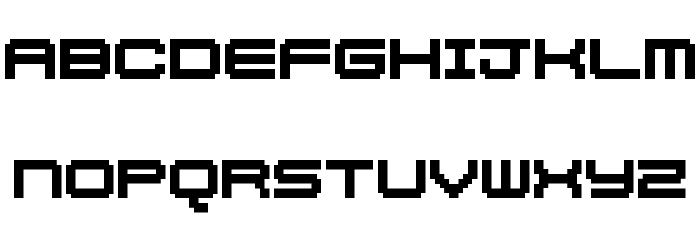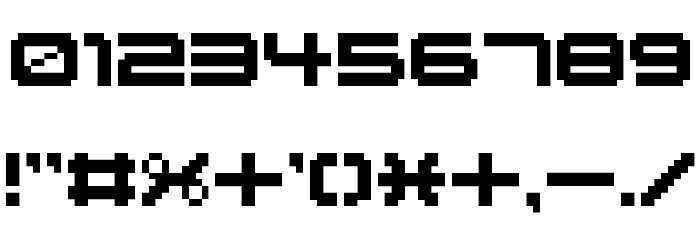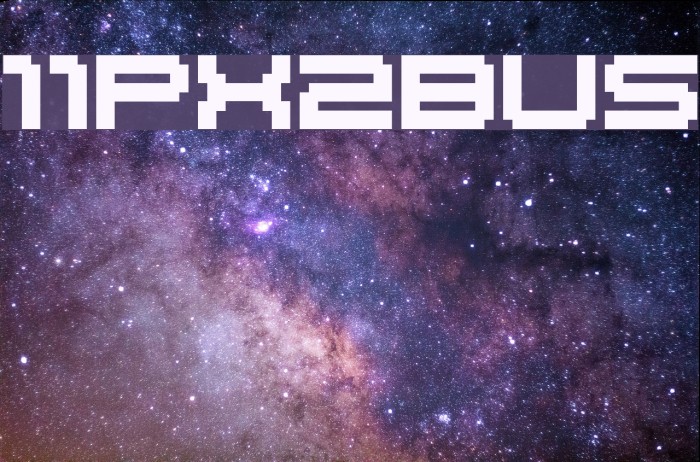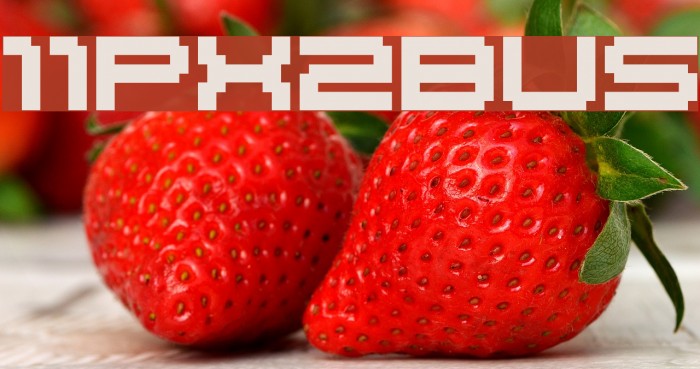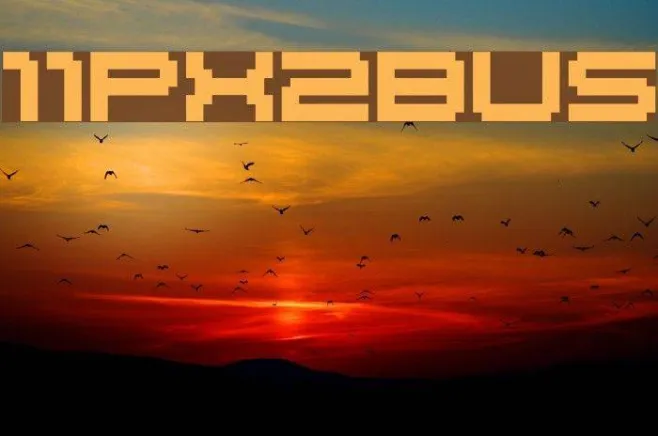
11px2bus Font
This font features a bold, pixelated design reminiscent of classic arcade games and early digital displays. Each character is constructed with a blocky, grid-like structure, giving it a distinctly retro and digital appearance. The uniformity in the height and width of the characters contributes to a cohesive and structured look. The font maintains a consistent stroke weight throughout, emphasizing its bold and impactful style. Its geometric and angular form makes it highly legible at various sizes, ideal for digital and retro-themed projects.
A bold, pixelated font with a retro digital style.
- Proposed Projects: Ideal for video game graphics, retro-themed designs, digital displays, and tech-related branding.
- Overall Style: Retro, Digital
- Use Case: Headlines, Logos, Digital displays